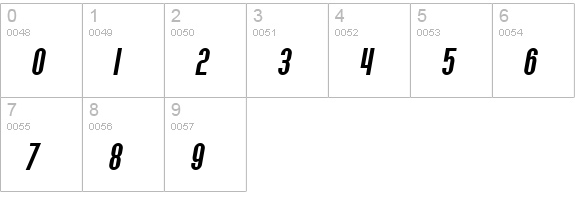
SF Willamette Italic Font Details
SF Willamette Italic is a distinctive, italic variant in the SF typeface family \xE2\x80\x94 well suited to design and typography projects.
SF Willamette Italic is a stunning typeface that effortlessly combines elegance with a touch of modernity. Its sleek and sophisticated design makes it the perfect choice for any project that aims to make a statement. Whether it’s a logo, a headline, or a creative piece of typography, SF Willamette Italic will effortlessly elevate your design to new heights. With its gracefully slanted letterforms and exquisite curves, this font exudes a sense of dynamism and movement. It captures attention and demands to be noticed, while maintaining a sense of refinement and grace. Each letter is meticulously crafted, ensuring a flawless visual appearance that is both captivating and legible. SF Willamette Italic is freely available to download at FontsMarket.com, allowing you to effortlessly incorporate this stunning typeface into your projects without any cost. It offers an incredible opportunity to enhance your designs with a high-quality, professionally designed font, without the need to break the bank. This font is a true gem that empowers designers to unleash their creativity without any limitations. Whether you're working on a personal project, a professional assignment, or simply exploring your passion for typography, SF Willamette Italic is a must-have in your font collection. Its versatility ensures that it can be used across various design mediums, from print to digital, ensuring your message is delivered with the utmost impact and style. Download SF Willamette Italic for free today at FontsMarket.com and experience the sheer beauty and versatility this font has to offer. Elevate your designs, captivate your audience, and create timeless masterpieces with this exceptional typeface.